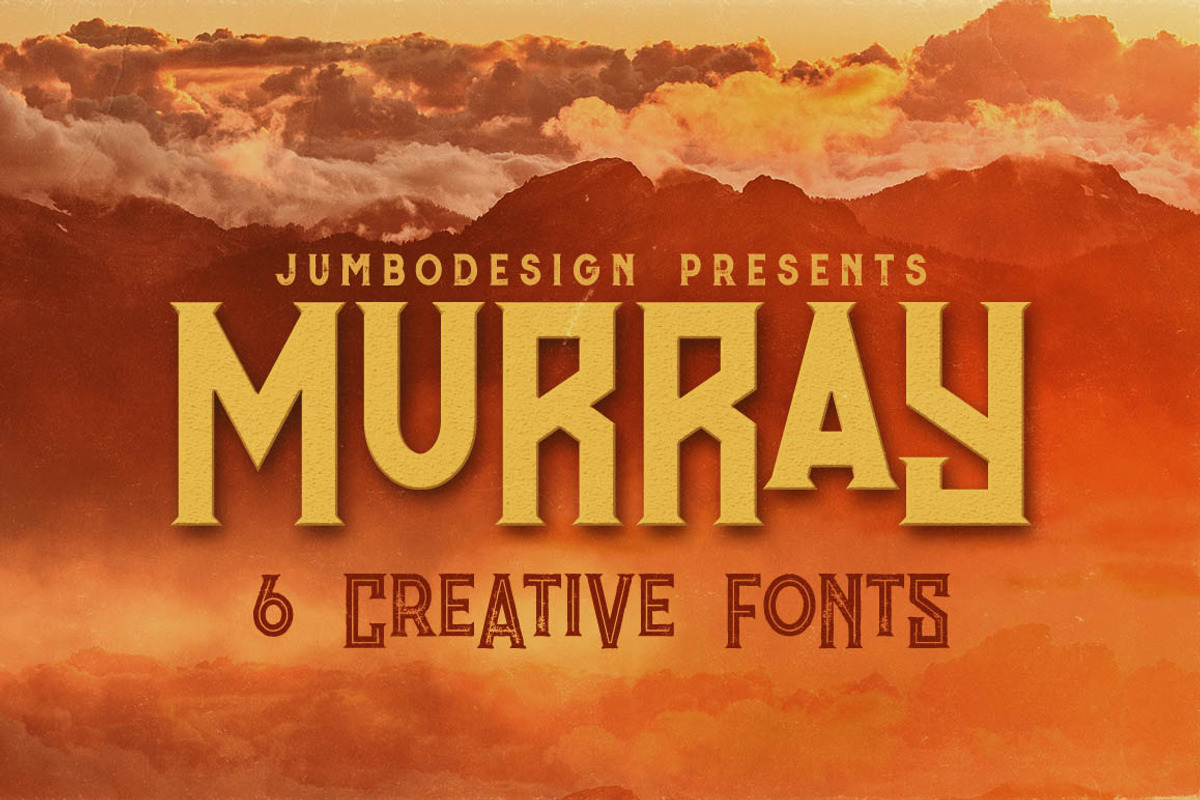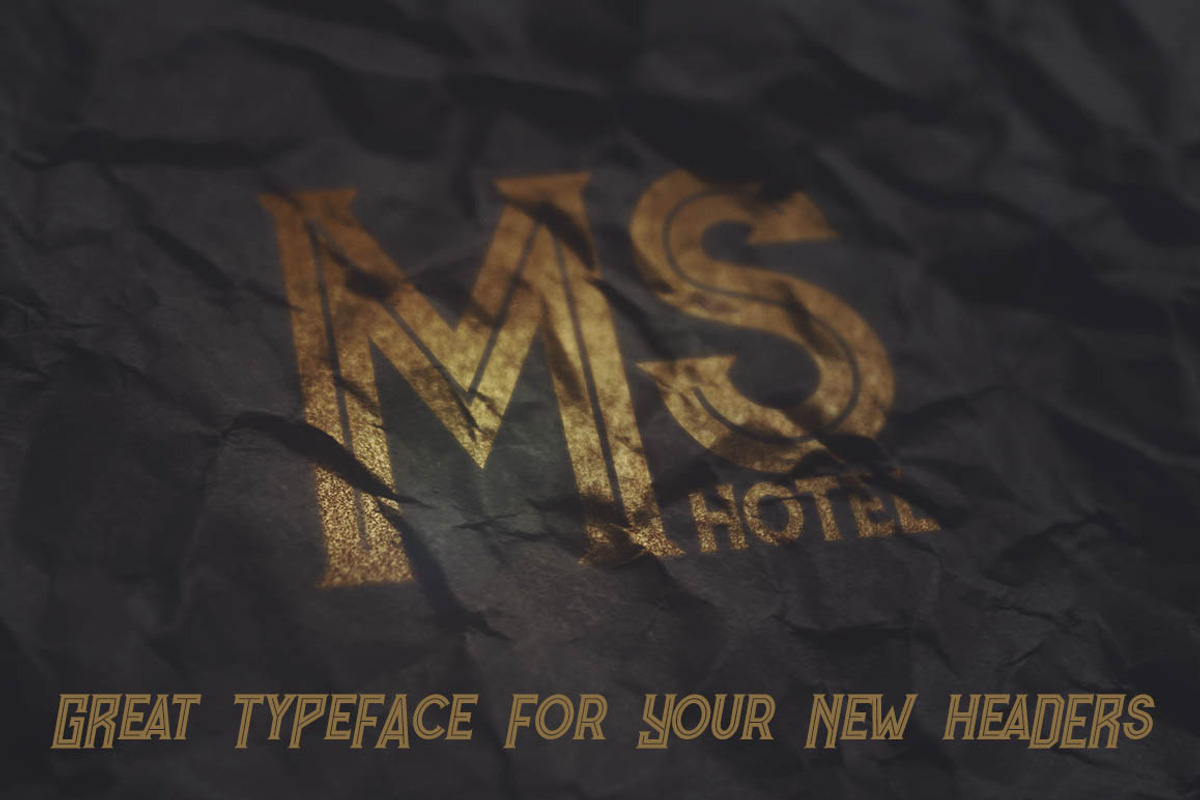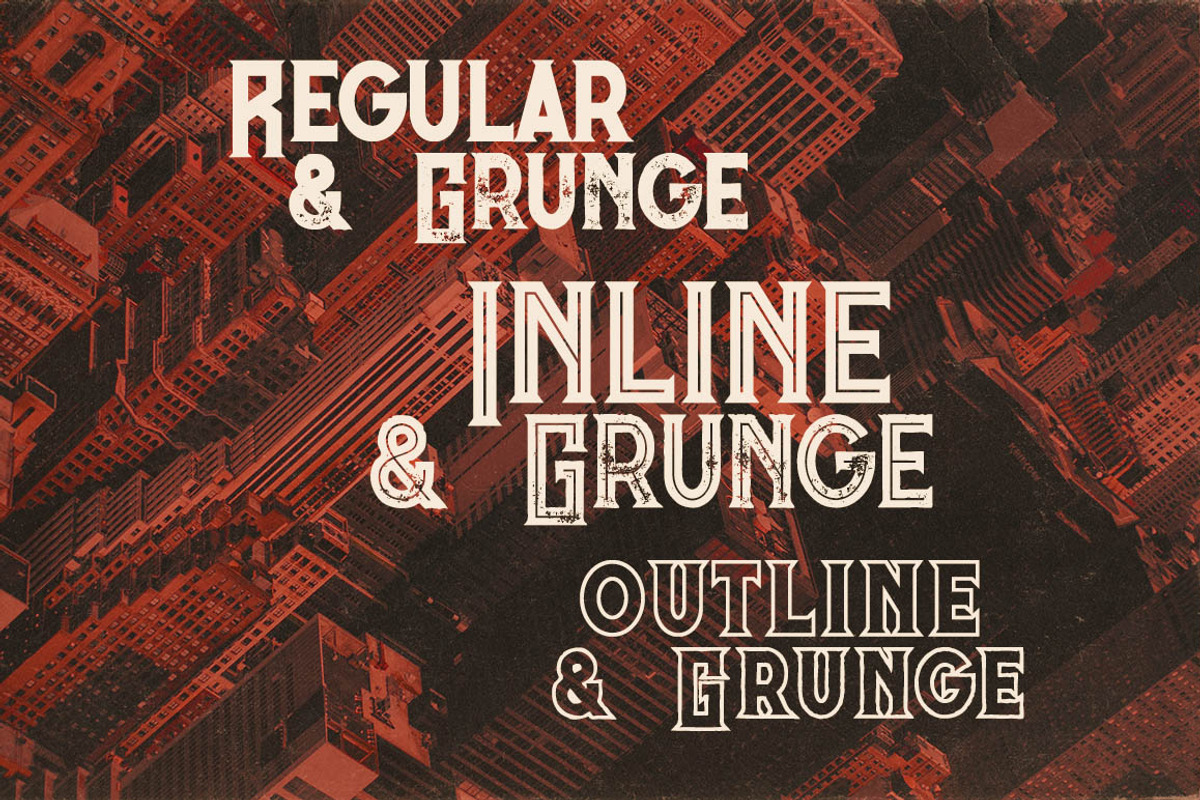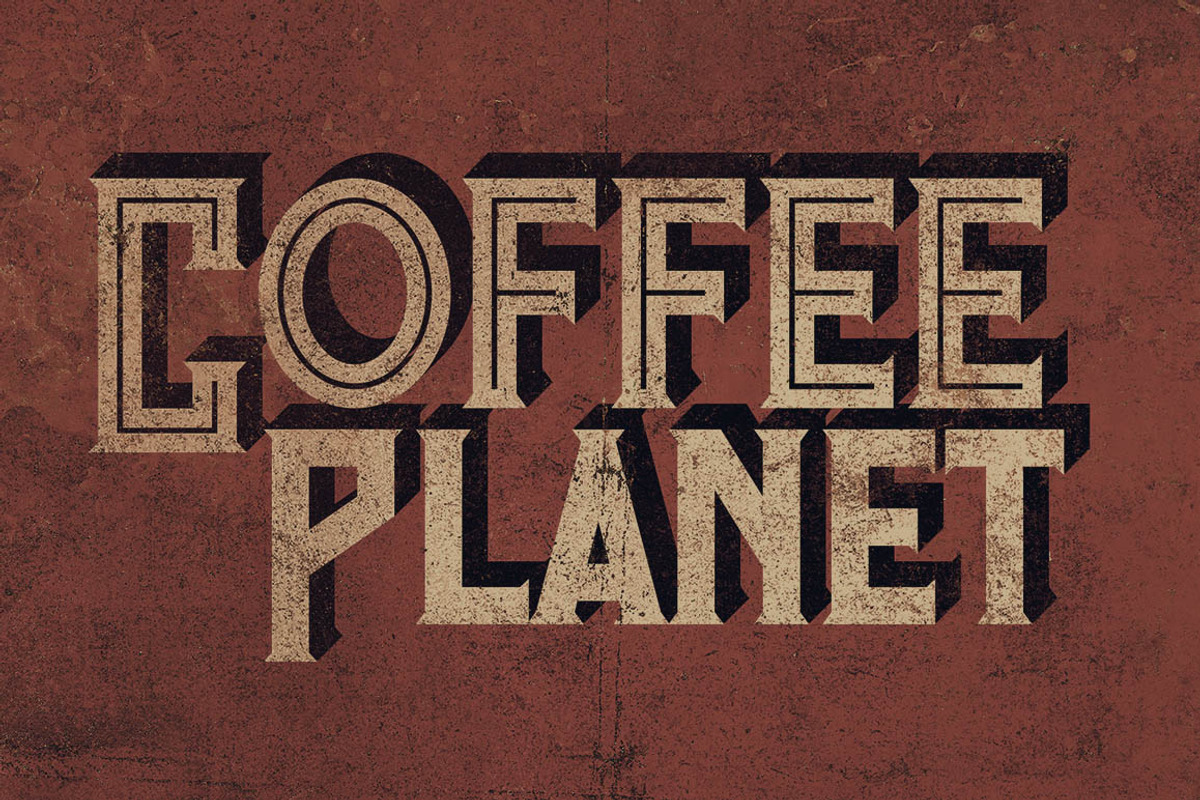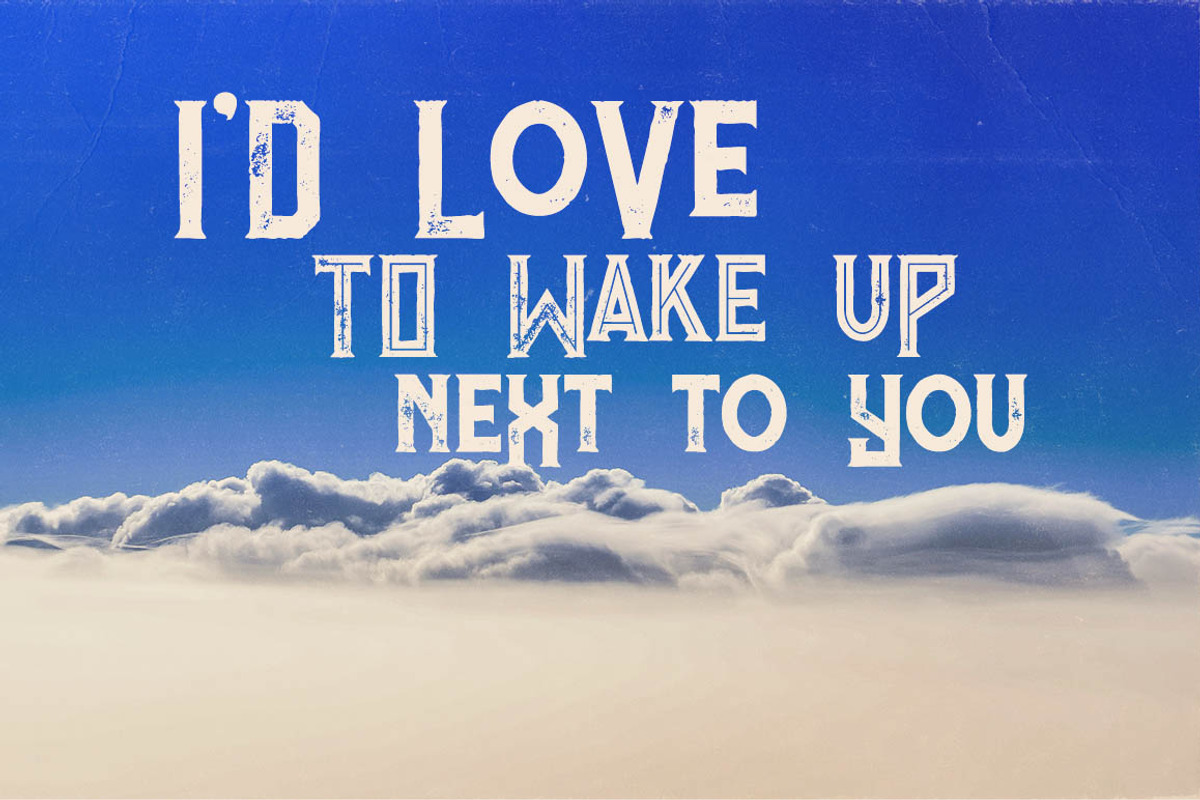
Murray - Vintage Style Font
Unique retro or modern style custom font with 6 styles: regular and grunge, inline and inline grunge, outline and outline grunge.